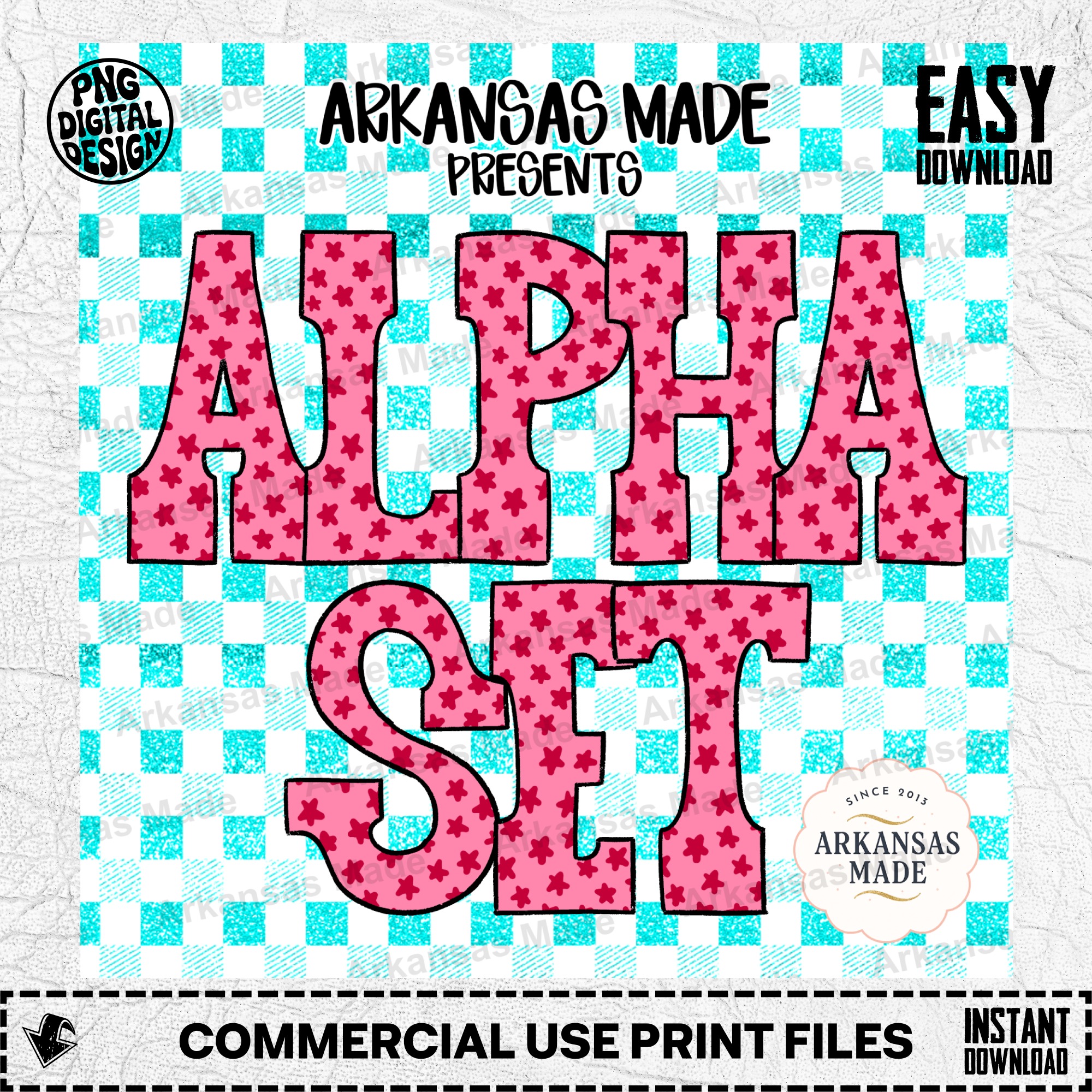
Pink Star Alpha Set PNG | Red Star Alphabet Sublimation Digital Download | Chunky Letters Font for Crafting
Unleash creativity with this vibrant Pink Star Alpha Set PNG, perfect for sublimation and digital crafting projects! This Red Star Alphabet is chunky and playful. Add a fun, retro touch to t-shirts, party decor, nursery art, and personalized gifts. Ideal for crafters, DIY enthusiasts, and small business owners creating unique, eye-catching merchandise for any celebration.